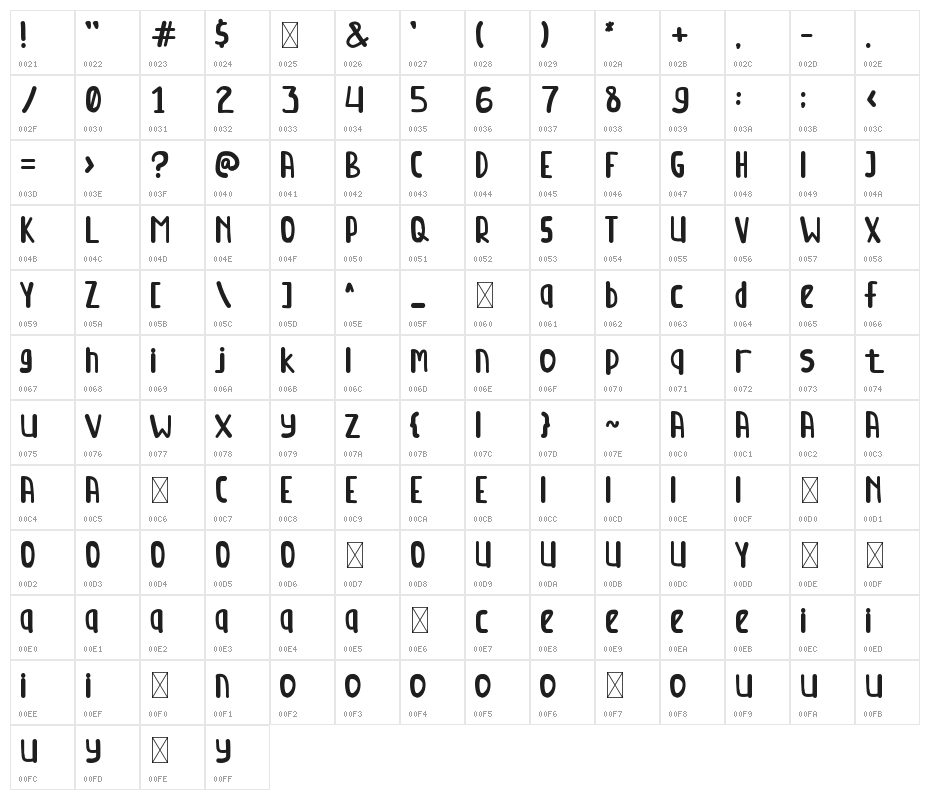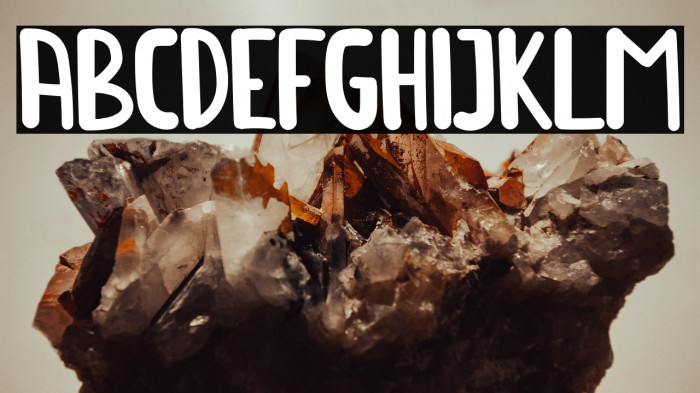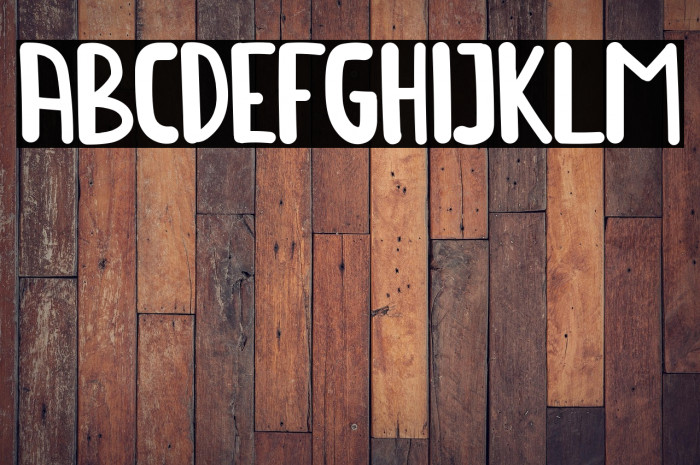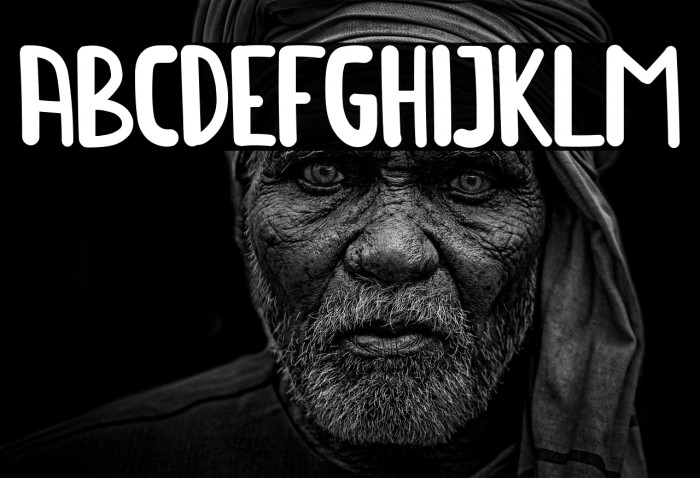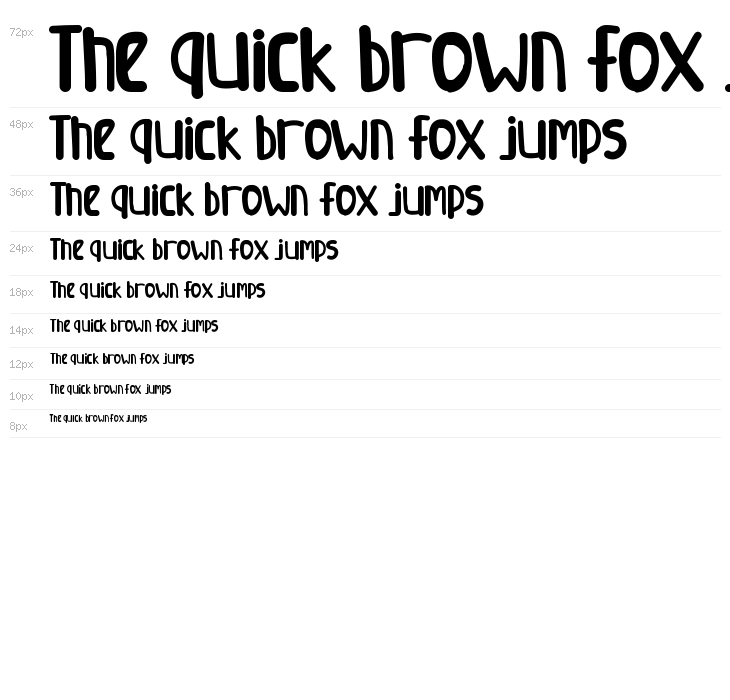
Kidstime Font
Kidstime Description
This playful and whimsical font features rounded, bold characters with a hand-drawn aesthetic. The uppercase and lowercase letters are consistent in style, with a friendly and approachable appearance. The numbers and special characters maintain the same playful vibe, making it suitable for a variety of creative projects. The font's strokes are uniform, contributing to its cohesive look, while the slightly irregular shapes add a touch of charm and personality. This font is perfect for projects aimed at children or those requiring a fun and informal tone.
| Overall Style | Playful |
| Use Case | Headlines, Logos, Informal Text |
| Proposed Projects | Ideal for children's books, educational materials, playful branding, and informal invitations. |